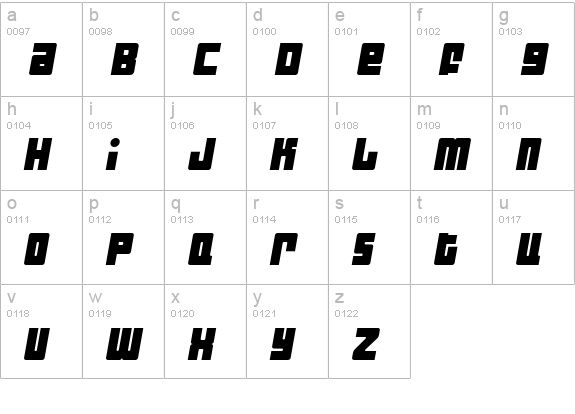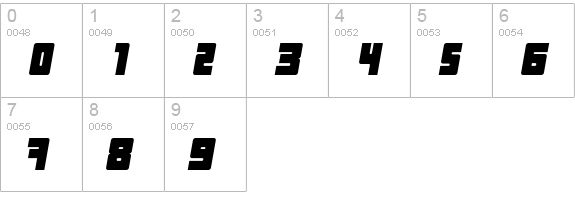
Industrial Decapitalist Italic is a distinctive, italic variant in the Industrial typeface family \xE2\x80\x94 well suited to design and typography projects.
Introducing the avant-garde and striking Industrial Decapitalist Italic font, a bold and dynamic typeface that pushes the boundaries of design. With its unique and eye-catching letterforms, this font is perfect for making a statement and adding a touch of modernity to any project. Industrial Decapitalist Italic is not only visually captivating but also highly functional. Its slanted and italicized style adds a sense of movement and energy, making it ideal for conveying a sense of urgency or breaking away from conventional typography. Whether it's for posters, logos, headlines, or any other design project, this font is sure to leave a lasting impression. One of the greatest features of Industrial Decapitalist Italic is that it is freely available to download at FontsMarket.com. This means that you can easily access and utilize this exceptional font for all your creative endeavors without any hassle or cost. Whether you're a professional designer, a student, or simply an enthusiast, this font offers you the freedom to explore and experiment with your designs without limitations. The carefully crafted letterforms of Industrial Decapitalist Italic exude a sense of strength and resilience, making it perfect for projects that require a bold and impactful visual presence. Its clean and precise lines ensure legibility, even at smaller sizes, while its unique styling adds a touch of character and distinction. Don't miss out on the opportunity to elevate your designs with the captivating Industrial Decapitalist Italic font. Download it for free at FontsMarket.com and unleash your creativity today. Whether you're looking to make a bold statement or simply add a touch of modernity to your projects, this font is the perfect tool to help you achieve your desired aesthetic.